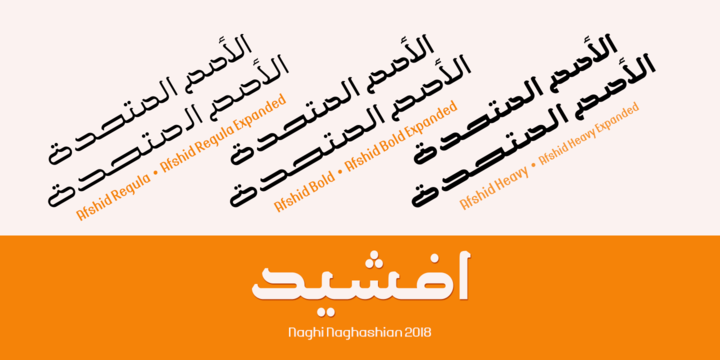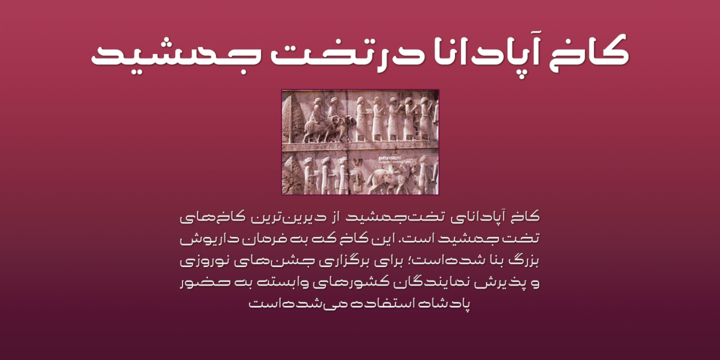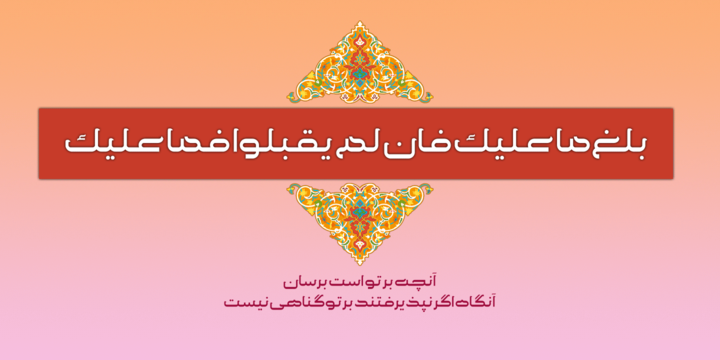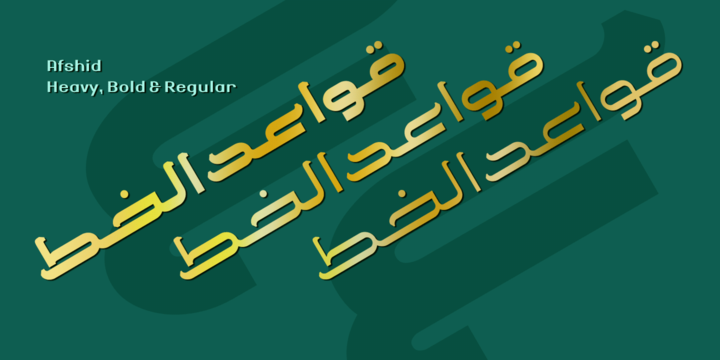
Afshid is a sans-serif font family in three weights and tow width. Afshid Regular and Afshid ExpandedRegular, Afshid Bold and Afshid ExpandedBold, Afshid Heavy and Afshid ExpandedHeavy.
This font family is a contribution to modernisation of Arabic typography, gives the font design of Arabic letters real typographic arrangement and provides more typographic flexibility.
Afshid supports Arabic, Persian and Urdu. It also includes proportional and tabular numerals for the supported languages. Afshid design fulfills the following needs: More A Explicitly crafted for use in electronic media fulfills the demands of electronic communication.
B Suitability for multiple applications. Gives the widest potential acceptability. C Extreme legibility not only in small sizes, but also when the type is filtered or skewed, e.
g., in Photoshop or Illustrator. Afshids simplified forms may be artificial obliqued in InDesign or Illustrator, without any loss in quality for the effected text.
D An attractive typographic image. Afshid was developed for multiple languages and writing conventions. Afshid supports Arabic, Persian and Urdu. It also includes proportional and tabular numerals for the supported languages. E The highest degree of calligraphic grace and the clarity of geometric typography.
This font family is a contribution to modernisation of Arabic typography, gives the font design of Arabic letters real typographic arrangement and provides more typographic flexibility.
Afshid supports Arabic, Persian and Urdu. It also includes proportional and tabular numerals for the supported languages. Afshid design fulfills the following needs: More A Explicitly crafted for use in electronic media fulfills the demands of electronic communication.
B Suitability for multiple applications. Gives the widest potential acceptability. C Extreme legibility not only in small sizes, but also when the type is filtered or skewed, e.
g., in Photoshop or Illustrator. Afshids simplified forms may be artificial obliqued in InDesign or Illustrator, without any loss in quality for the effected text.
D An attractive typographic image. Afshid was developed for multiple languages and writing conventions. Afshid supports Arabic, Persian and Urdu. It also includes proportional and tabular numerals for the supported languages. E The highest degree of calligraphic grace and the clarity of geometric typography.